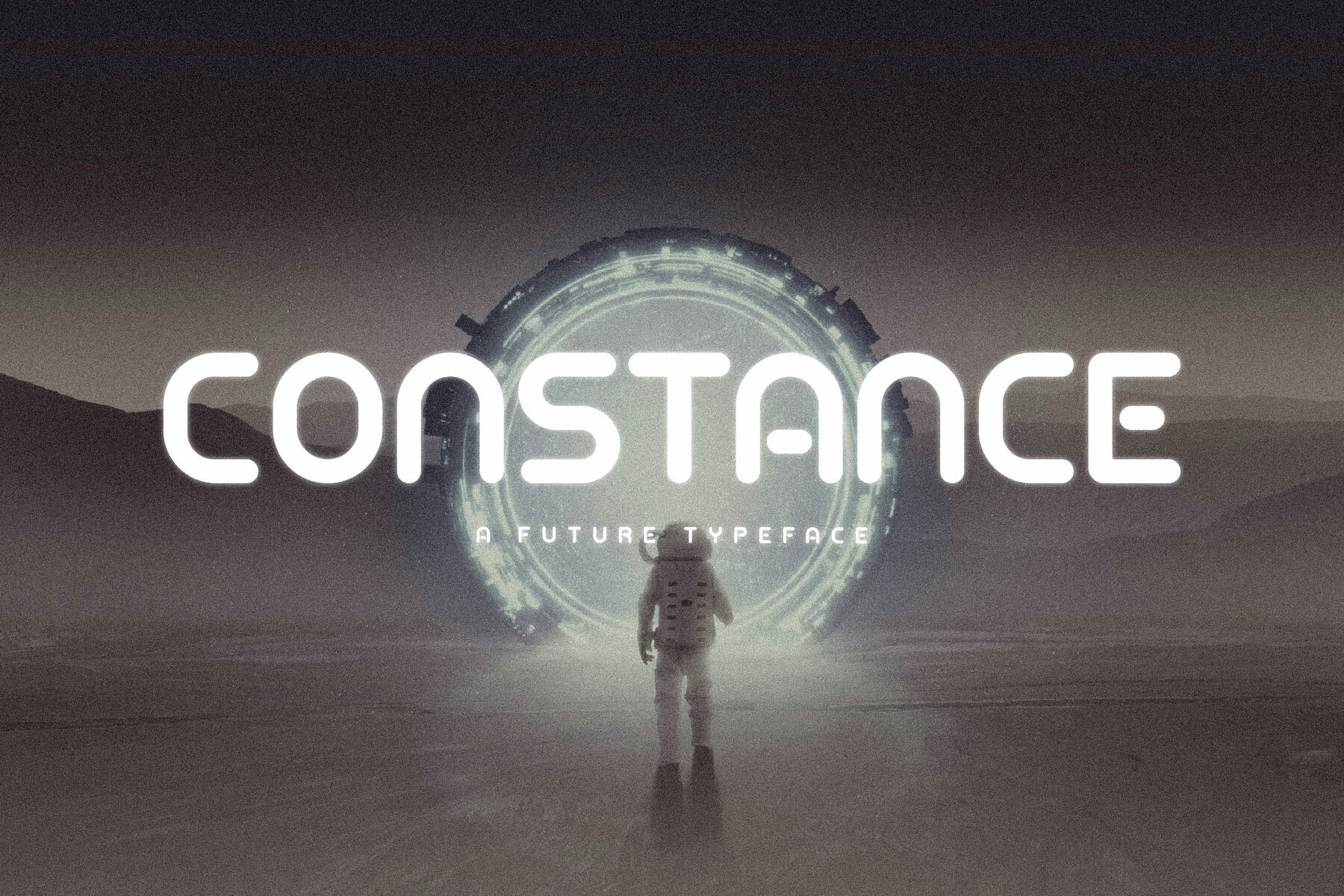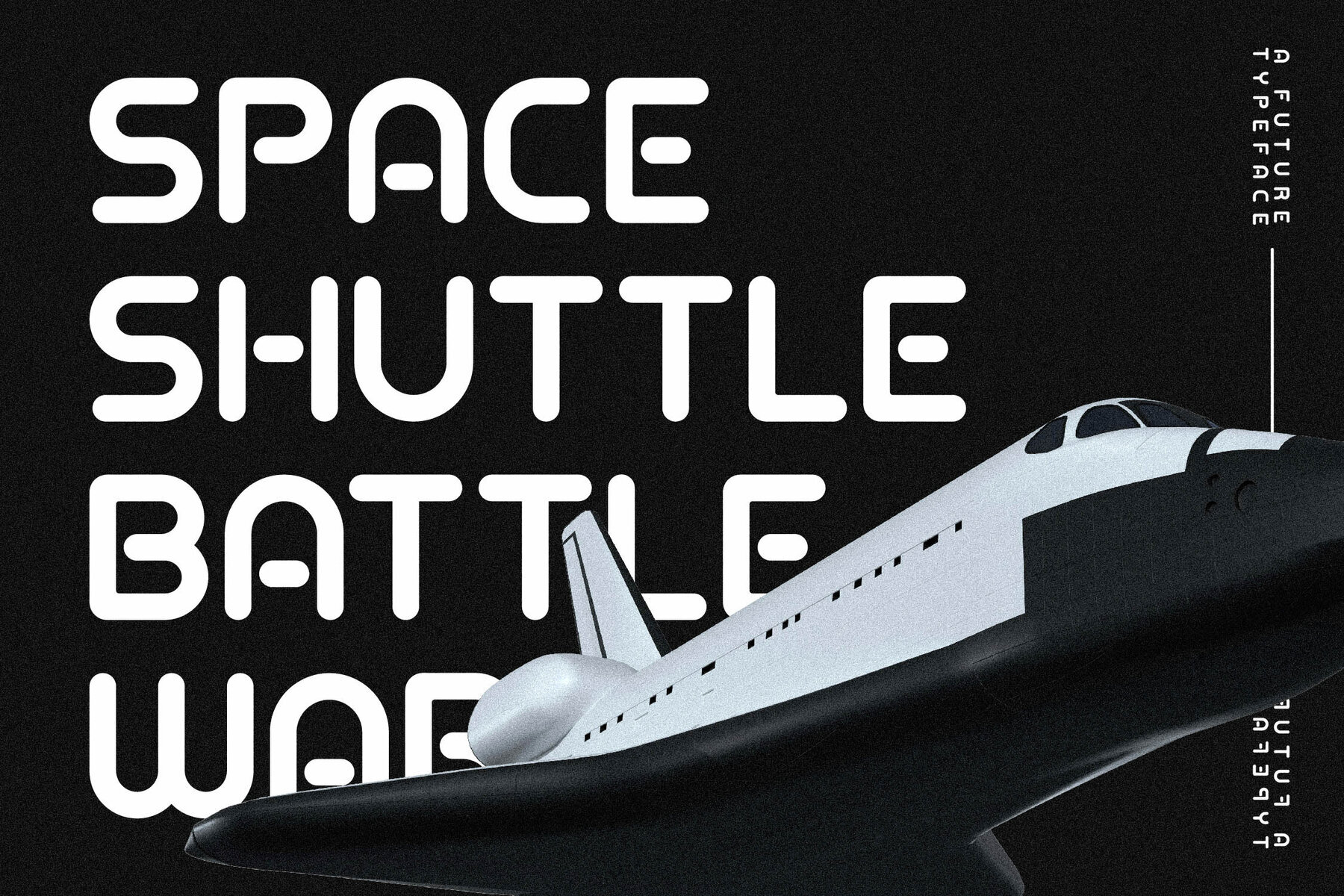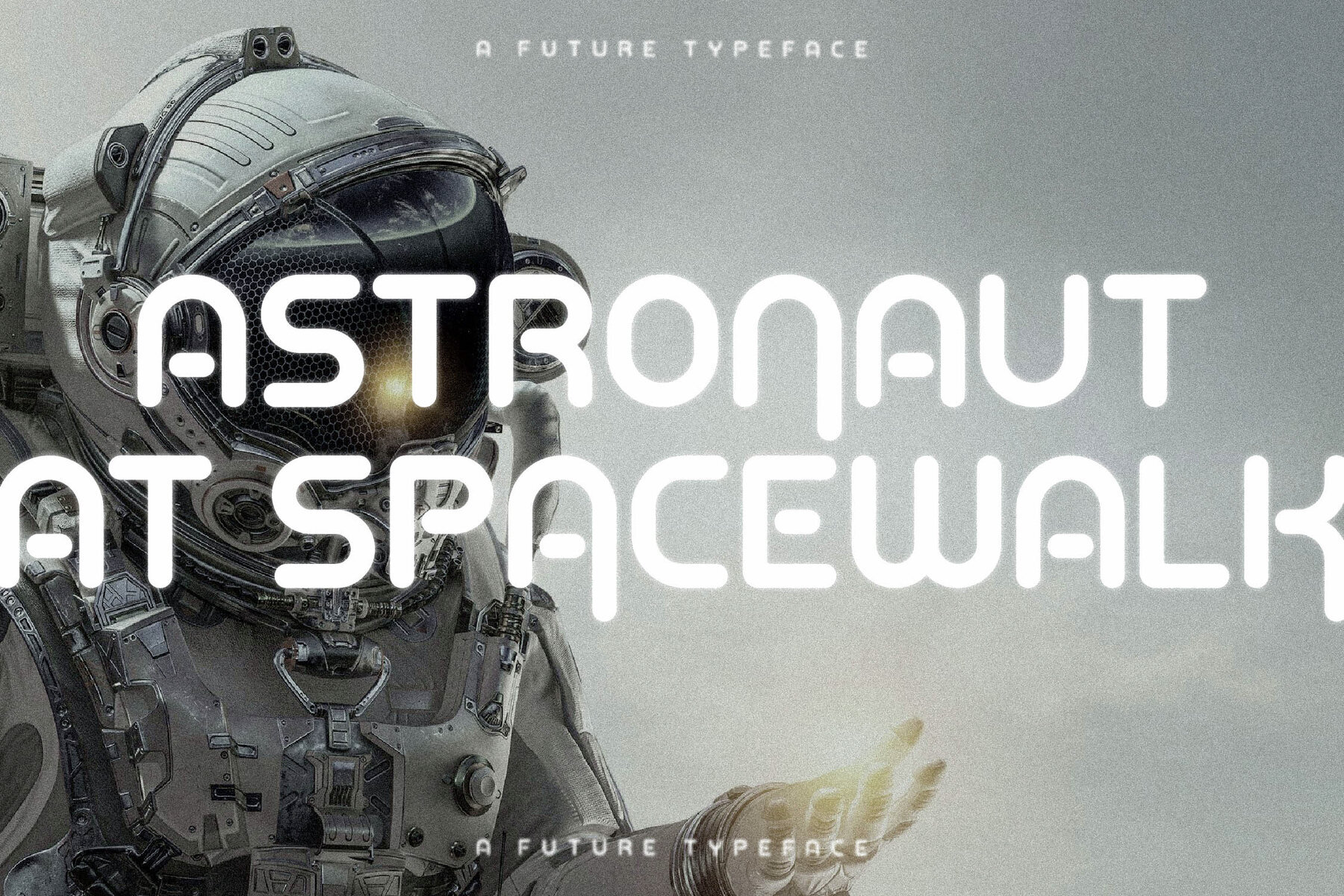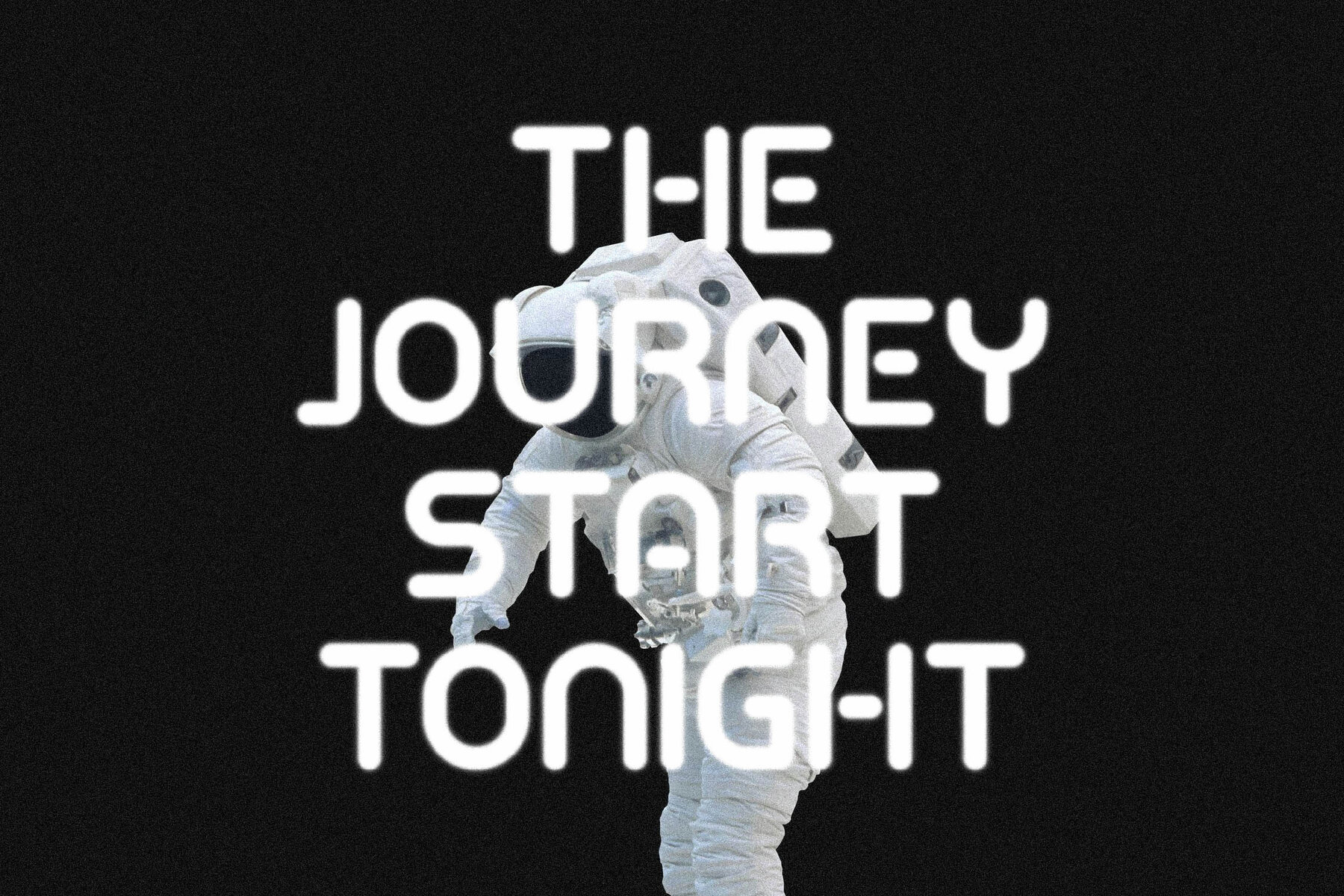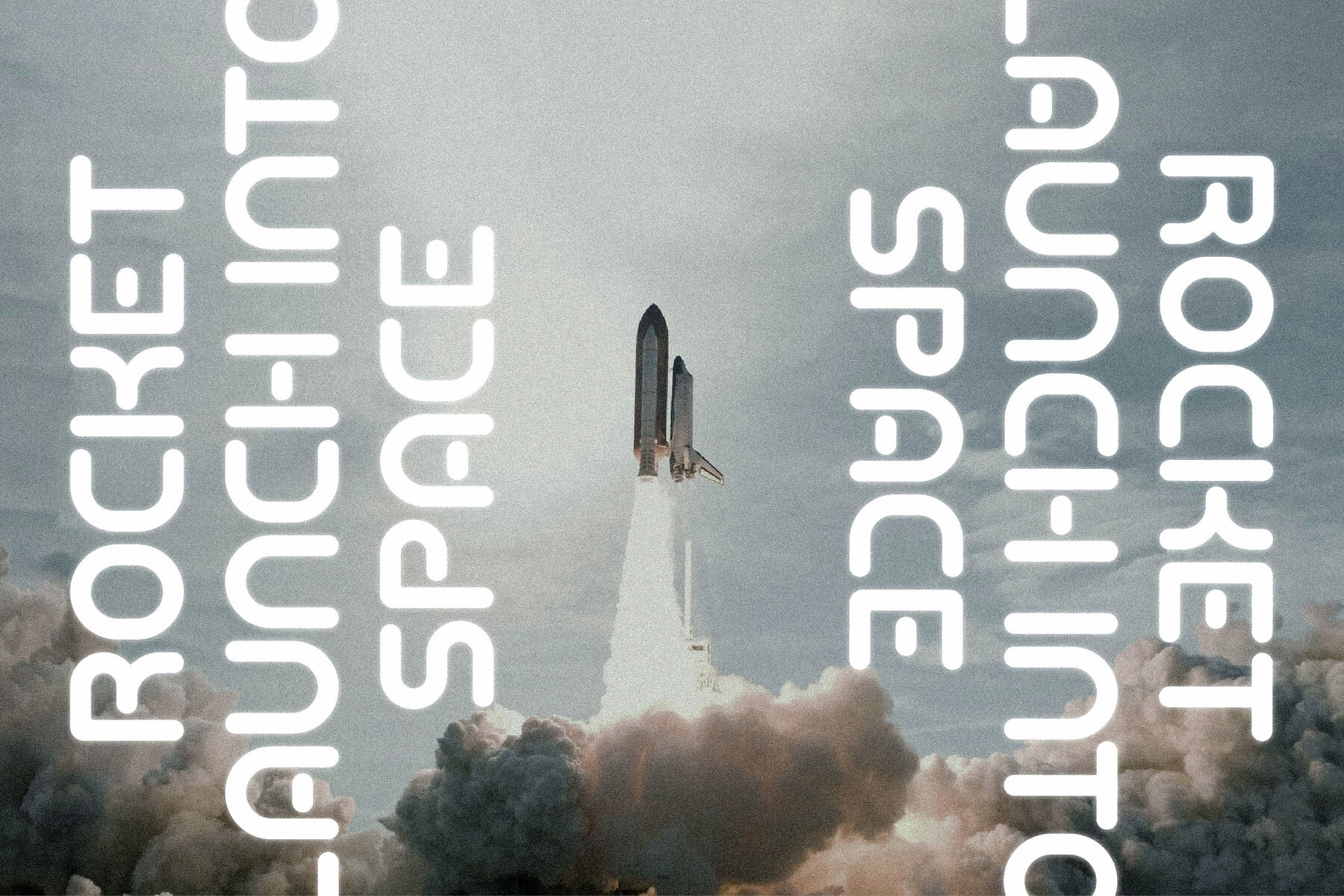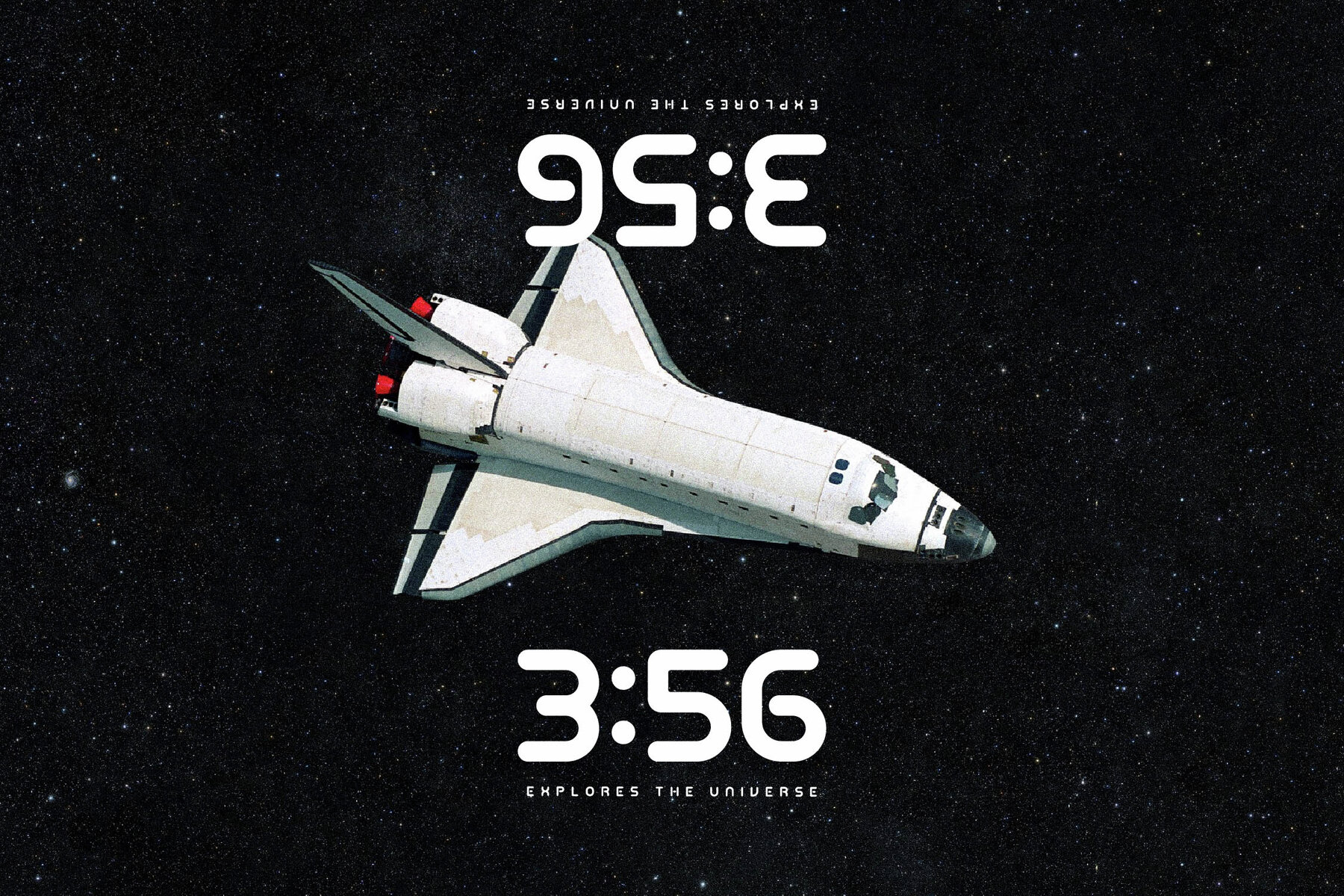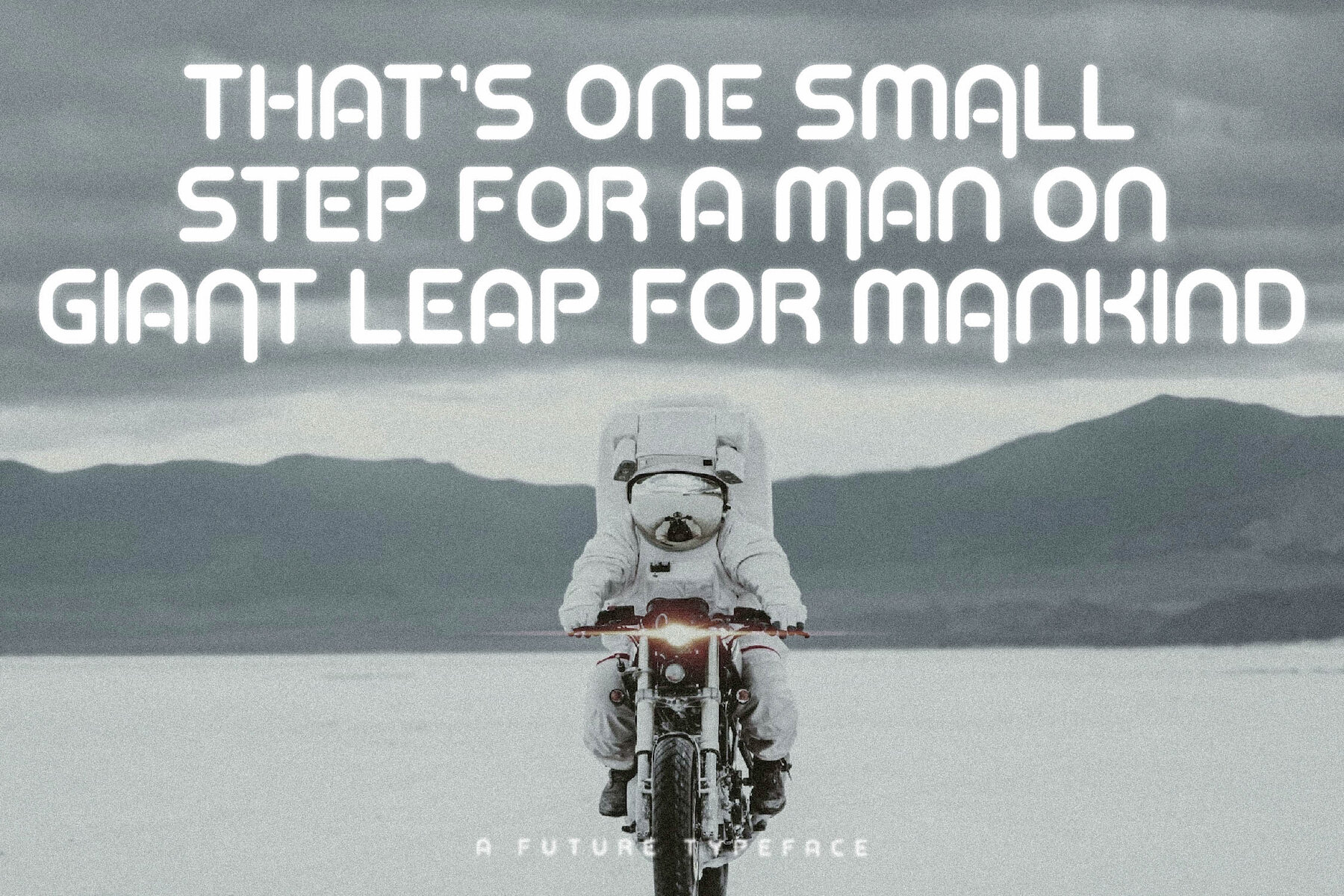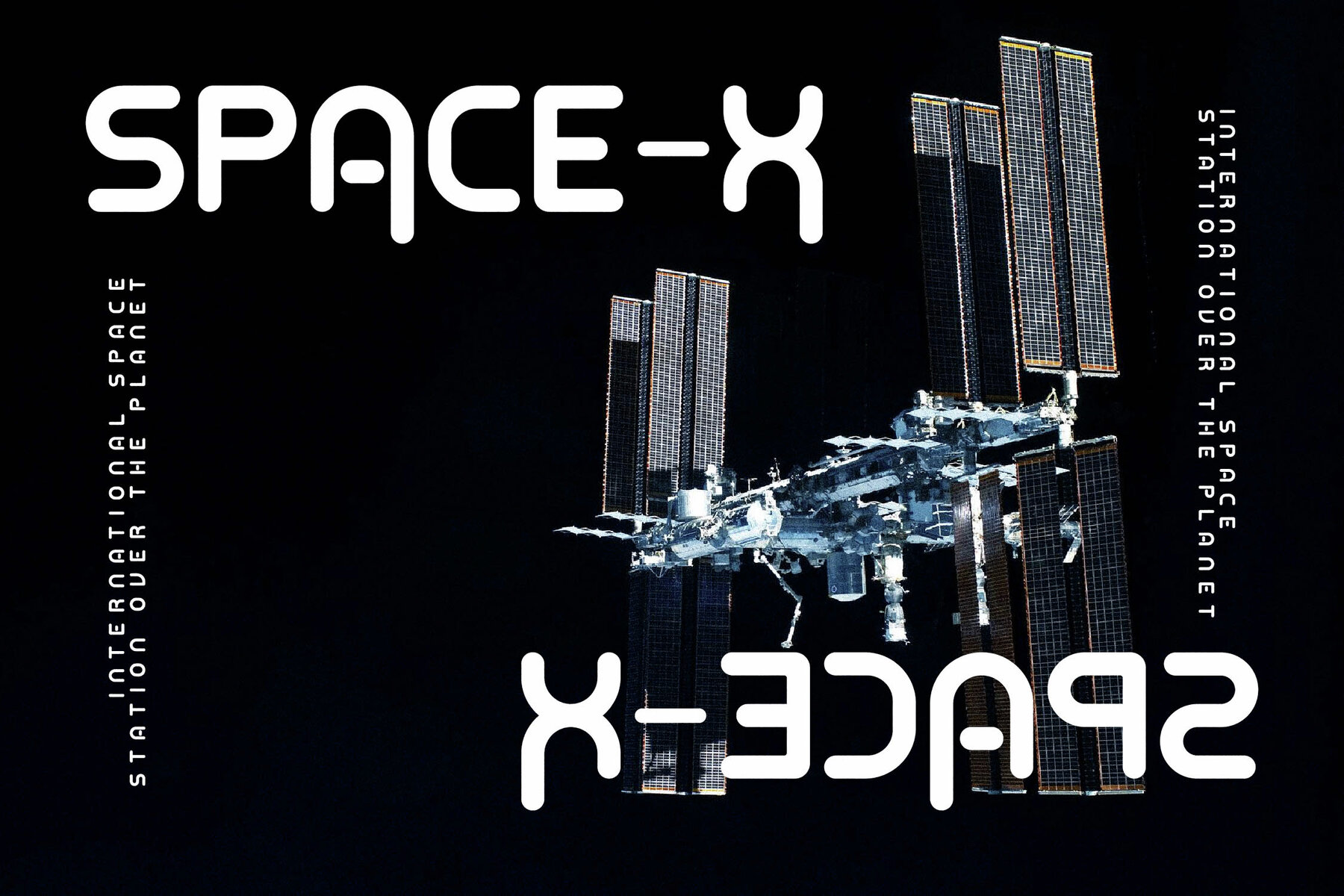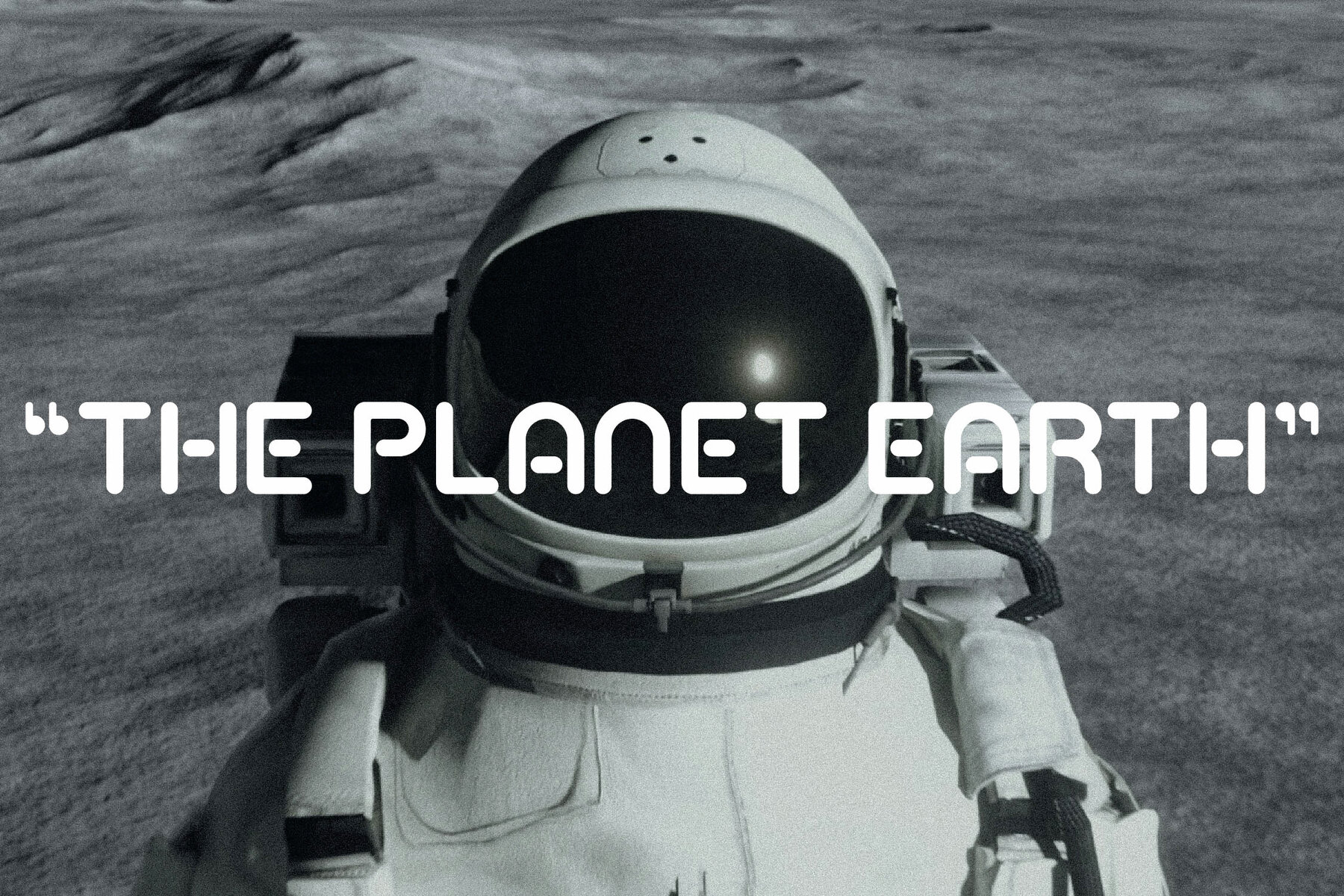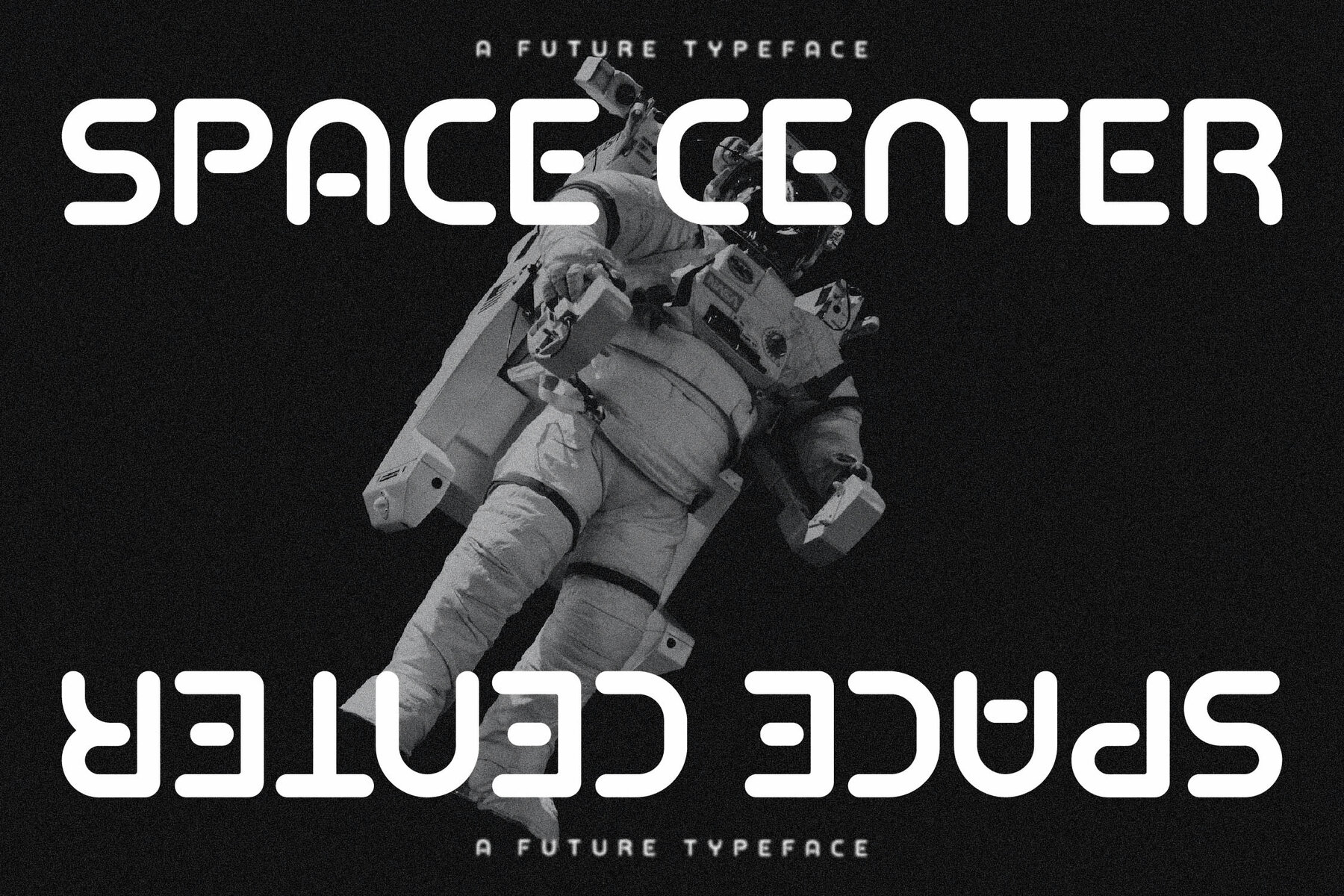
CONSTANCE Font
CONSTANCE Regular
CONSTANCE Italic
Immerse yourself in the timeless elegance of CONSTANCE, a serif typeface crafted by Storytype Studio. This modern and classic design inherently carries a unique style, making it ideal for creating luxurious logos, captivating book or movie titles, high-end fashion branding, and sophisticated magazine layouts. Whether you're designing for clothing lines or using it for inspirational quotes, CONSTANCE promises to elevate your work with its distinct charm.CONSTANCE Typeface: Elegance Meets Modernity